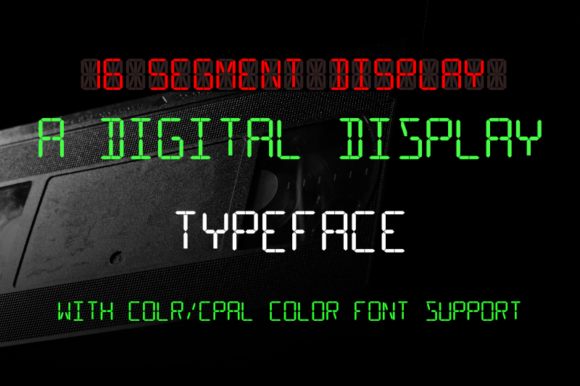
Dive into a realm of captivating aesthetics with our remarkable 16 Segment Display Font! This extraordinary font family, meticulously crafted by thorchristopherarisland, offers a unique and vibrant flair, harkening back to the nostalgic charm of old VCRs, CD players, and clock radios. Immerse yourself in a symphony of colors as you witness the mesmerizing play of hues within each letterform, reminiscent of vintage electronic displays.
Elevate your creative projects to new heights with this captivating font. Design eye-catching logos that radiate a retro-futuristic vibe, or craft stunning posters that transport your audience to another era. Unleash your imagination and explore a world of endless possibilities, where the boundaries of design are pushed and innovation reigns supreme.
16 Segment Display Font is not just a font; it's an experience that ignites nostalgia and sparks creativity. With its vibrant color palette and captivating design, this font will transform your designs into extraordinary masterpieces. Join the ranks of discerning designers and embrace the power of 16 Segment Display Font today!